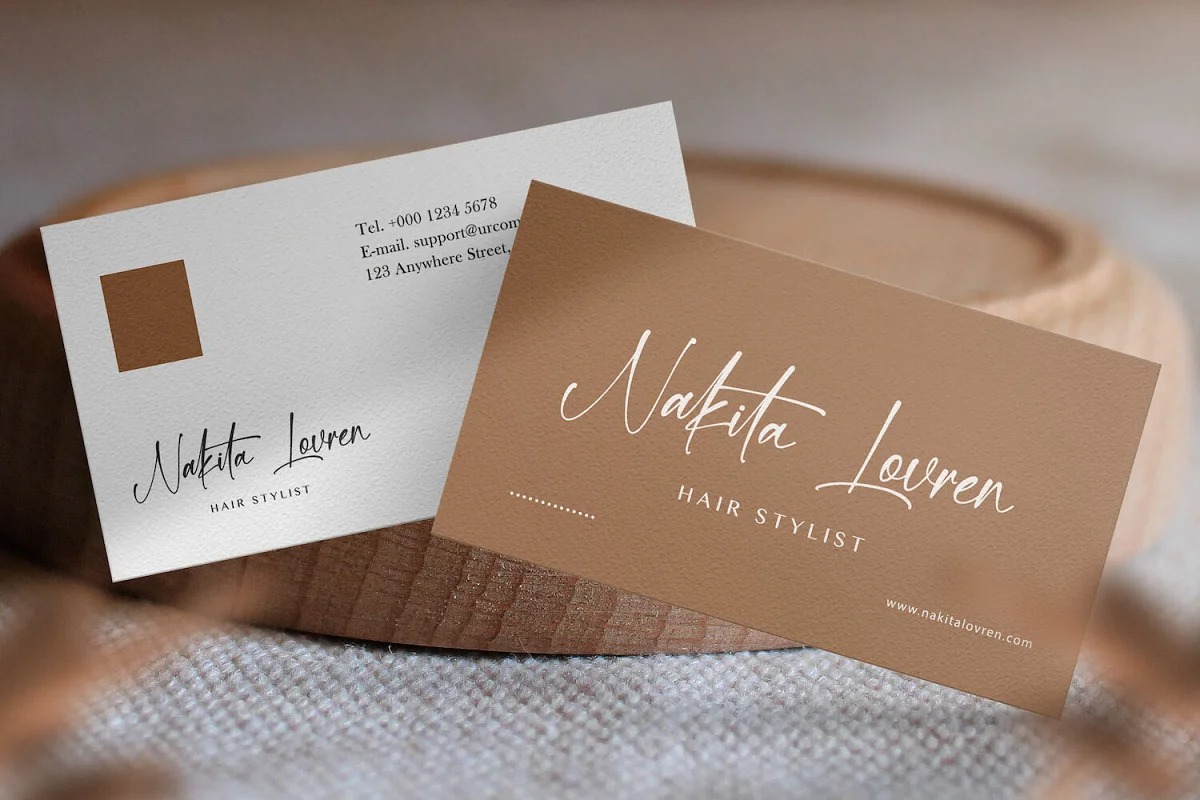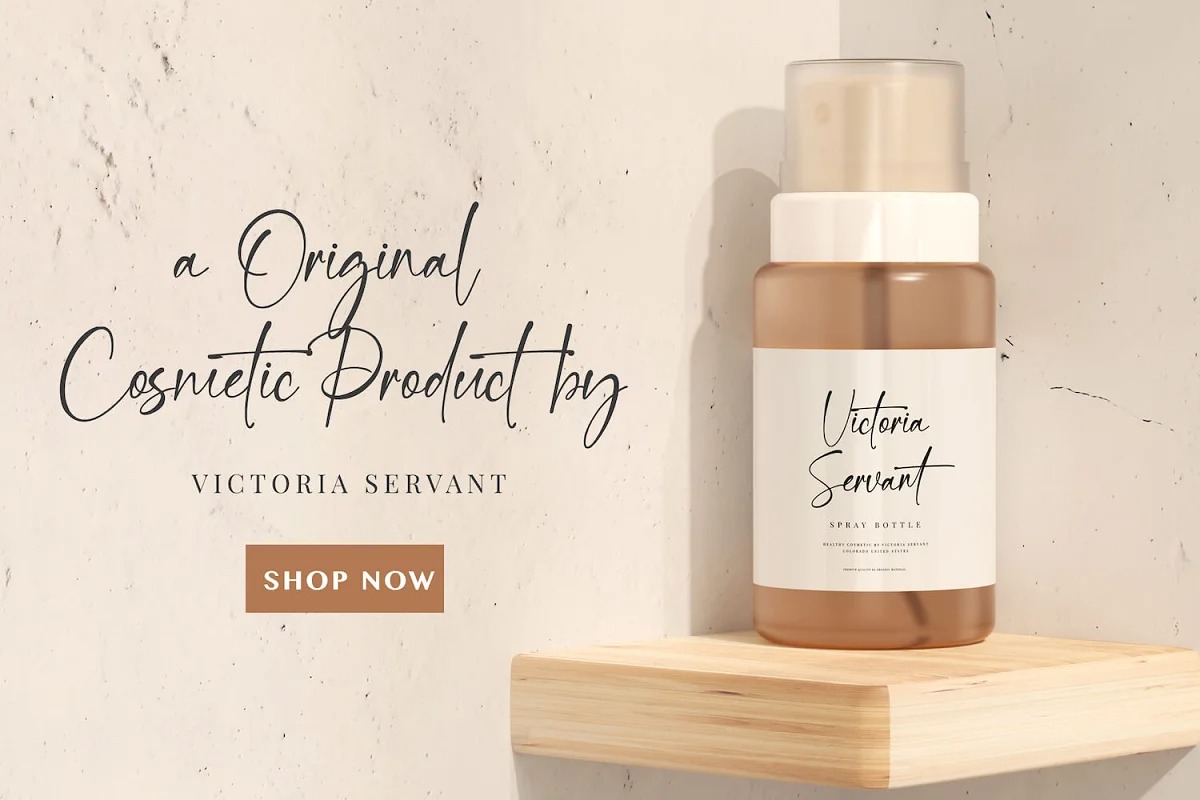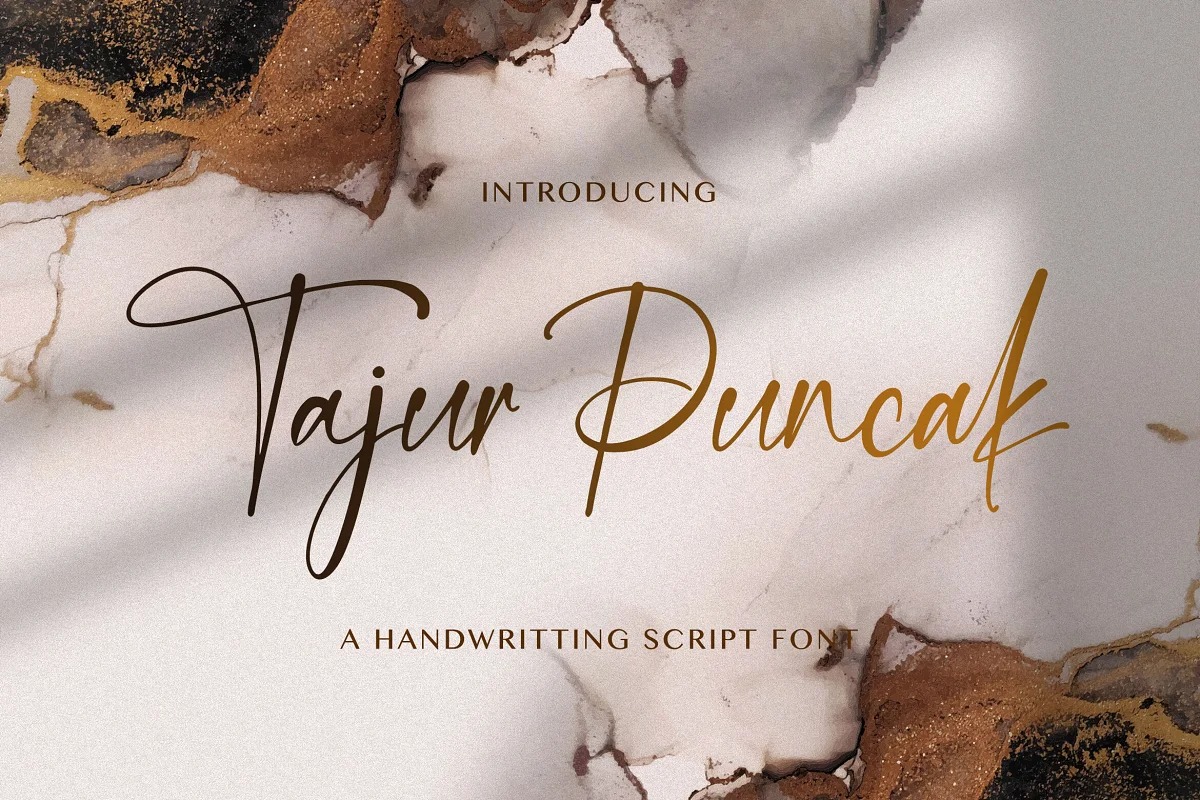
Tajur Puncak Font
Tajur Puncak Script Font is an authentic & organic hand-drawn script typeface, crafted using a real fountain pen. It has beautiful and well balanced characters and as a result, it matches a wide pool of designs. Add it to your most creative ideas and notice how it makes them come alive!